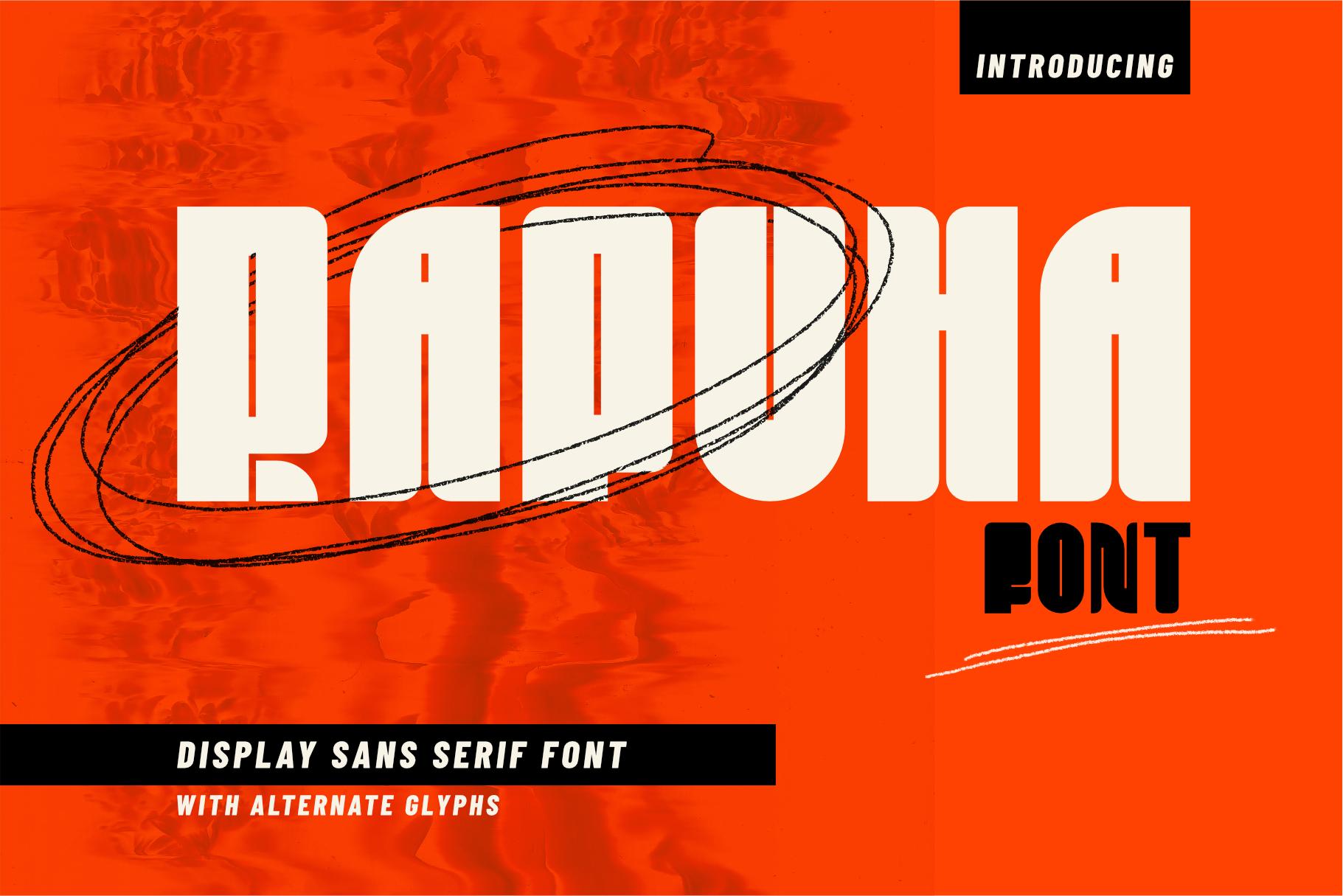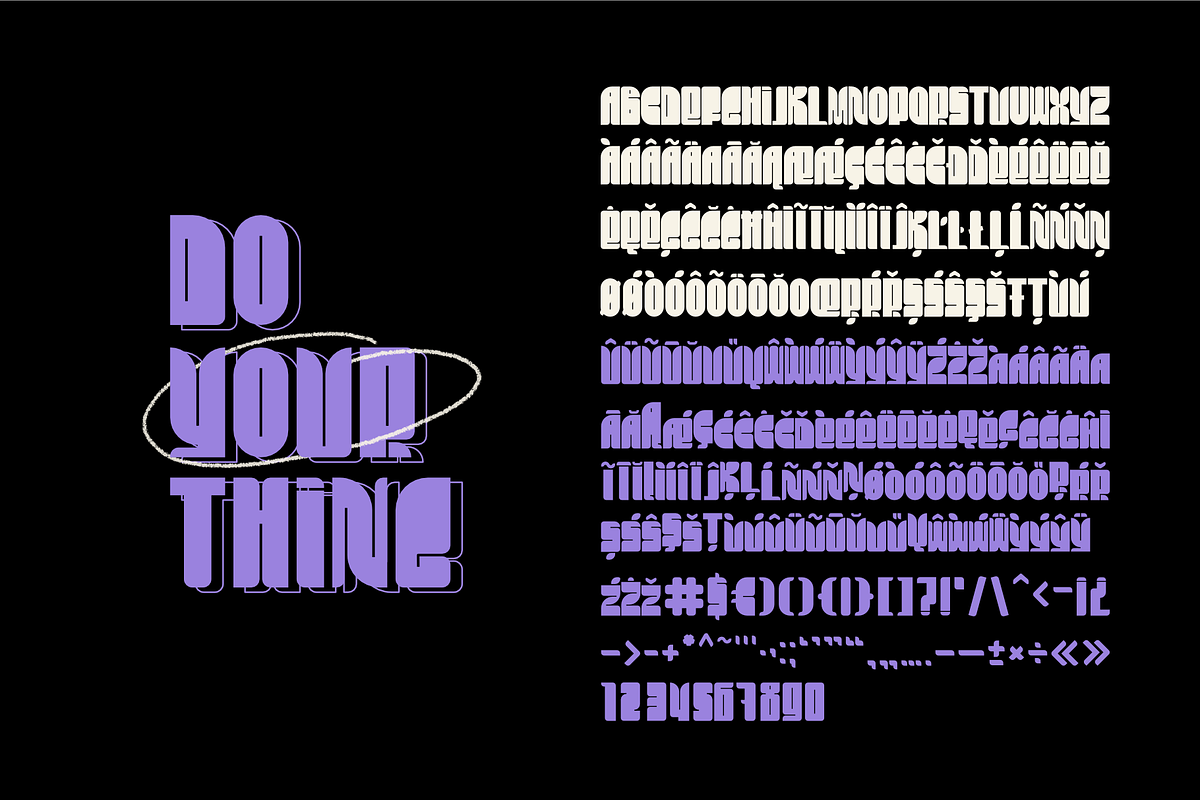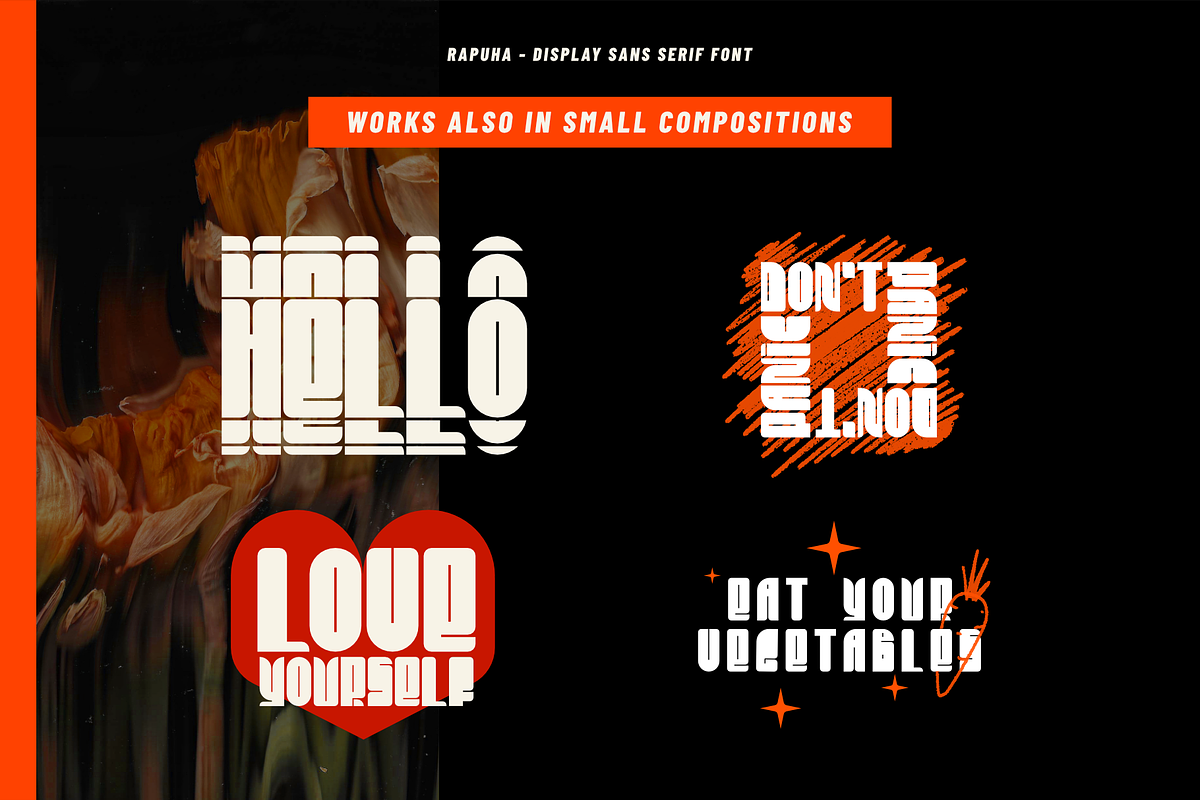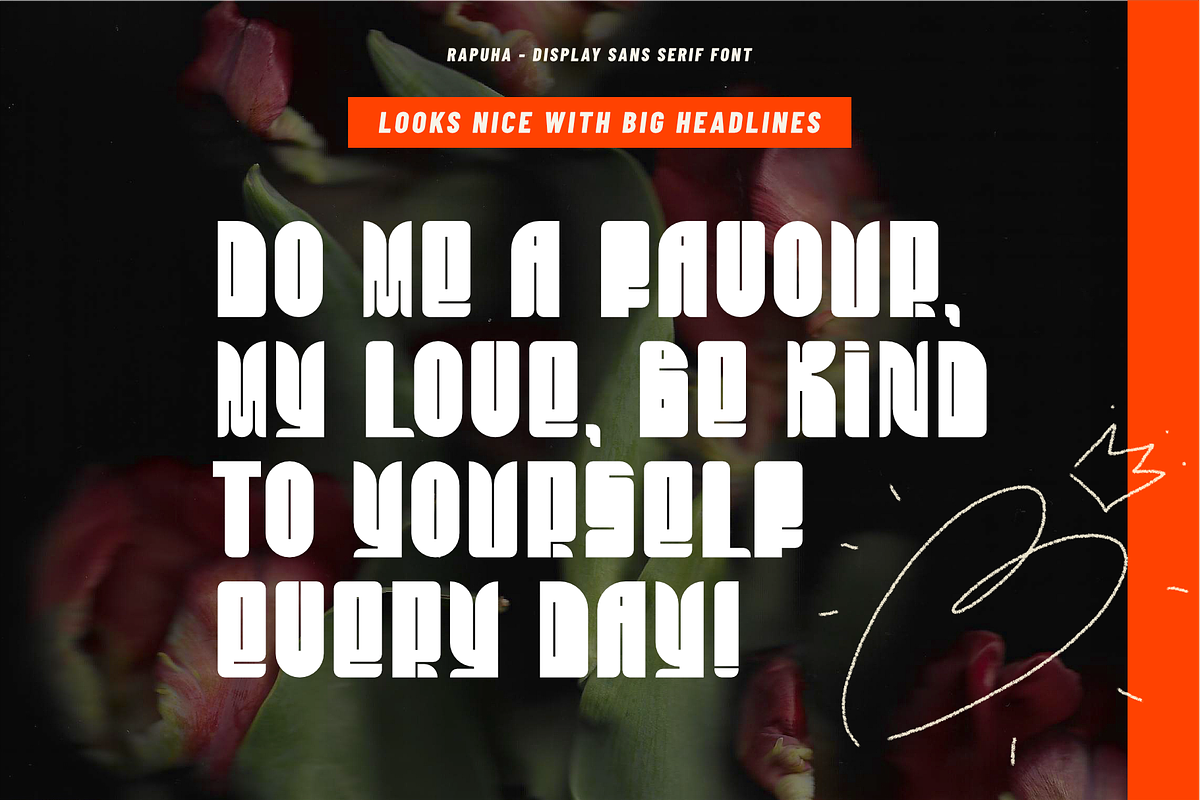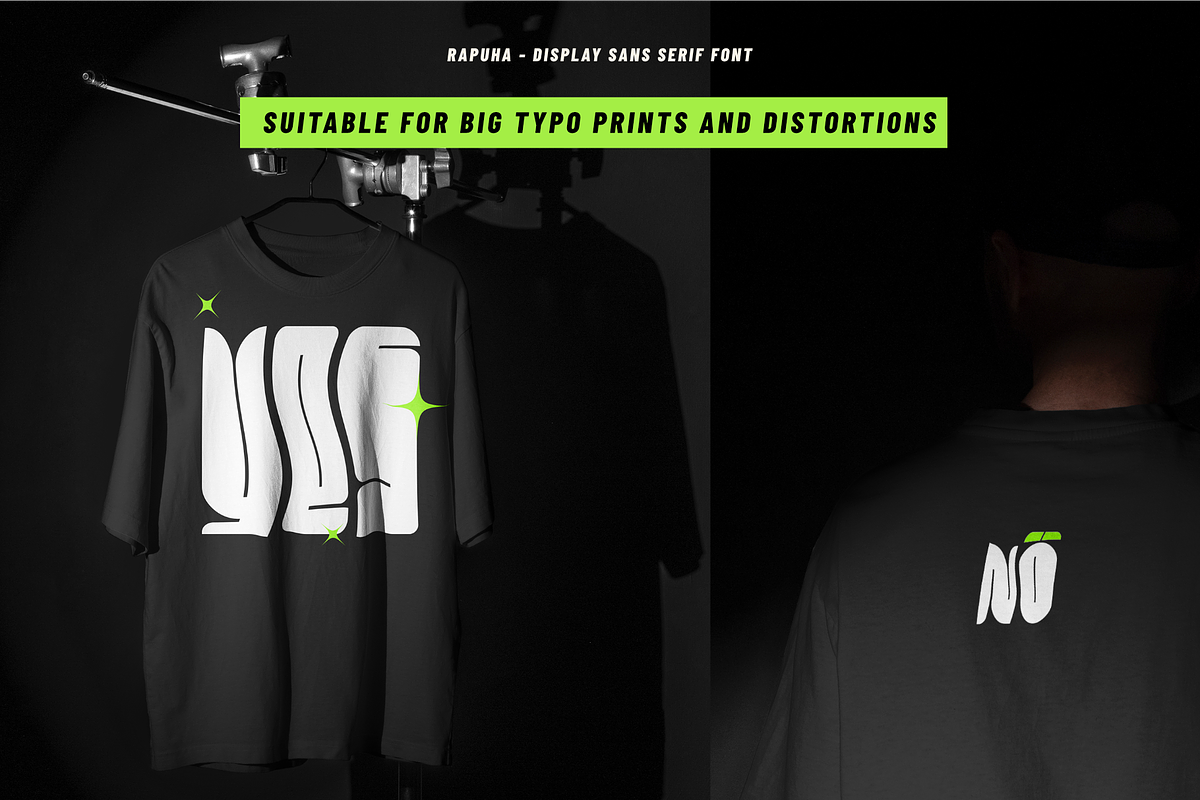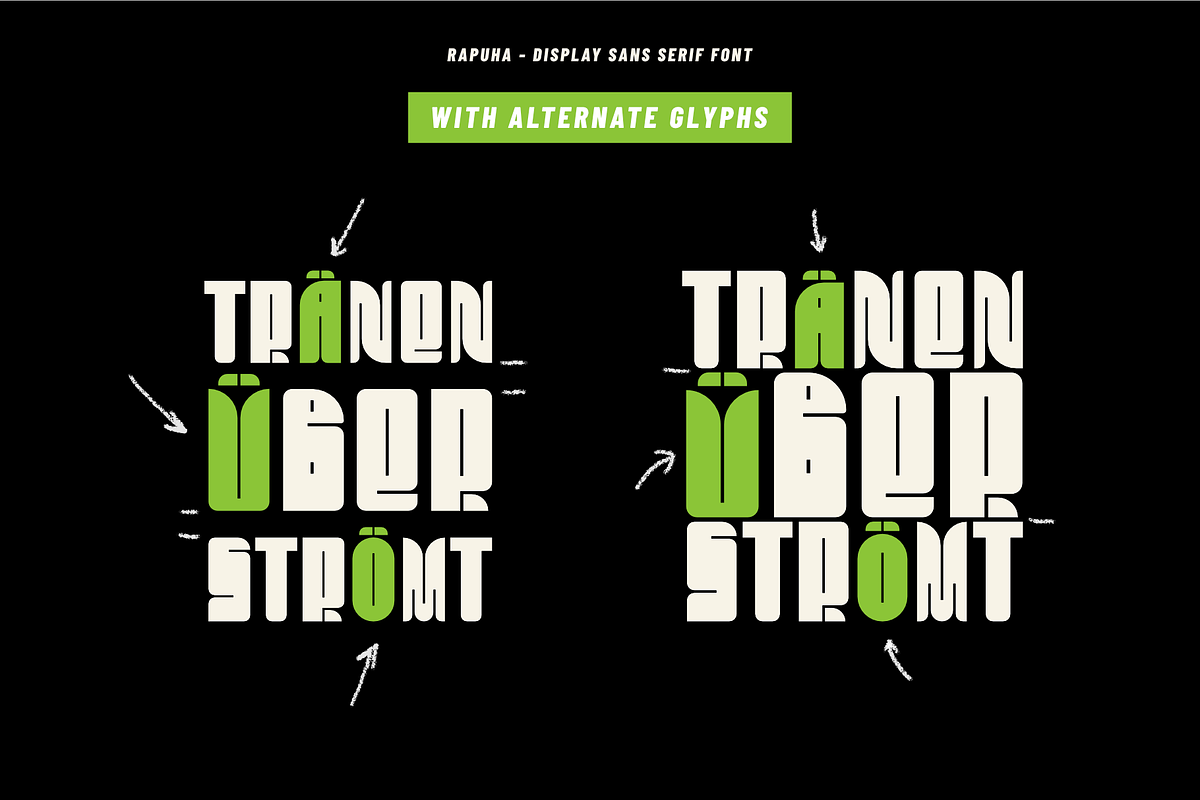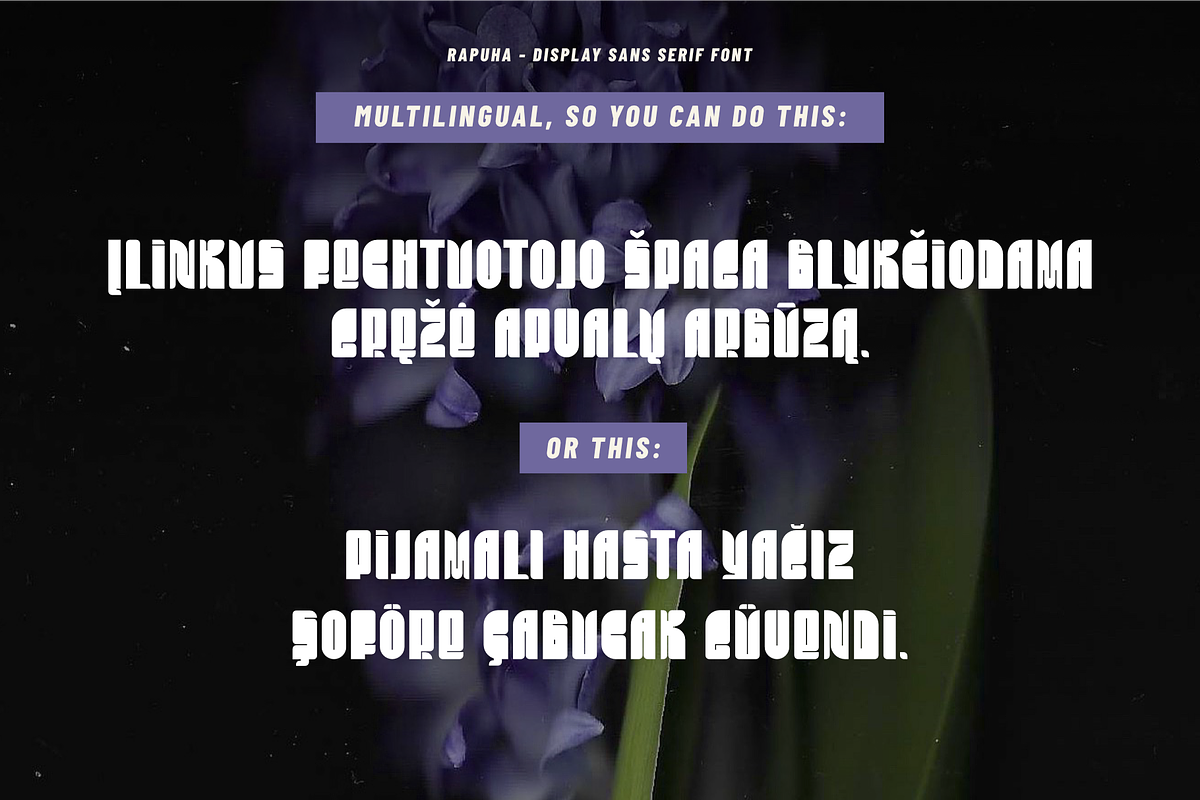
Rapuha - geometric display typeface
Rapuha is a bold semi condensed typeface, with many alternative glyphs. The glyphs are based on simple geometrical forms and have a little contrast in the letters themselves, due to the letter height and very small negative space. This makes it perfect for large, clear headlines on posters, postcards, labels, stickers, packaging, advertising and many other products. The geometric structure of the symbols allows slight distortion, if you need it, but the font remains fairly readable.
You can also play around with colours, outline weights and kerning. The alternative glyphs also help to keep the space between each line as small as possible for better optical effect.
The font contains:
- Uppercase letters from A to Z
- Numerals from 0 to 9
- Punctuation symbols
- Alternative glyphs for all diacritical characters in the font